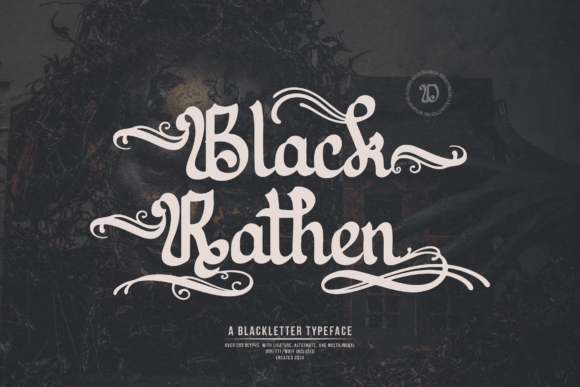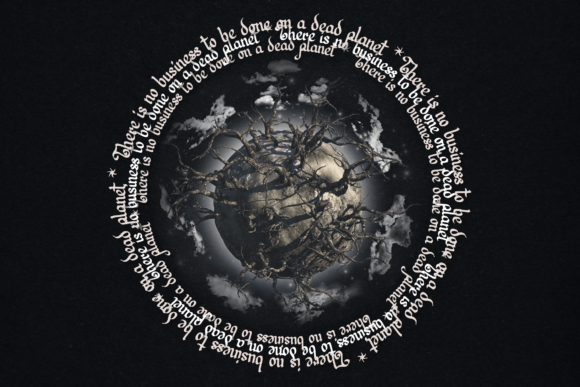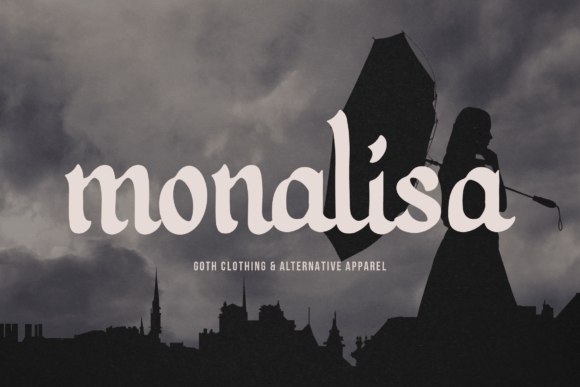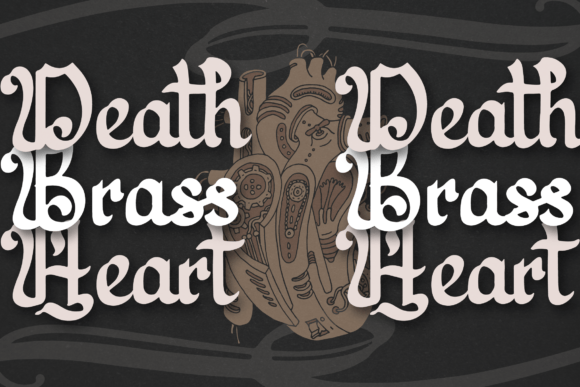
Black Rathen Font
About the Black Rathen Font
From logos to headlines, the Black Rathen Font is the perfect choice for making a lasting impression. Black Rathen is a bold Blackletter typeface that features ornate, Gothic-style letters. It’s perfect for adding a vintage or medieval touch to designs, making text look dramatic and eye-catching. Ideal for posters, invitations, or any project that needs a classic flair!
Black Rathen’s bold strokes and intricate details excel in headlines, short impactful statements, and logos where its dramatic presence commands attention. It is unsuitable for body text or lengthy paragraphs due to its low readability at smaller sizes. Avoid using it in user interfaces (UI) or applications requiring high legibility.
The font’s strong, authoritative personality makes it ideal for brands projecting power, tradition, or a touch of gothic flair—think luxury goods, historical societies, or high-fantasy themed projects. Consider pairing it with a clean sans-serif like Montserrat for contrast and readability in supporting text, or a classic serif like Garamond for a more refined, vintage aesthetic.
A modern geometric sans-serif like Futura could offer a striking juxtaposition, balancing Black Rathen’s ornate forms with clean lines. Avoid pairing it with other highly decorative fonts, as this would create visual clutter.